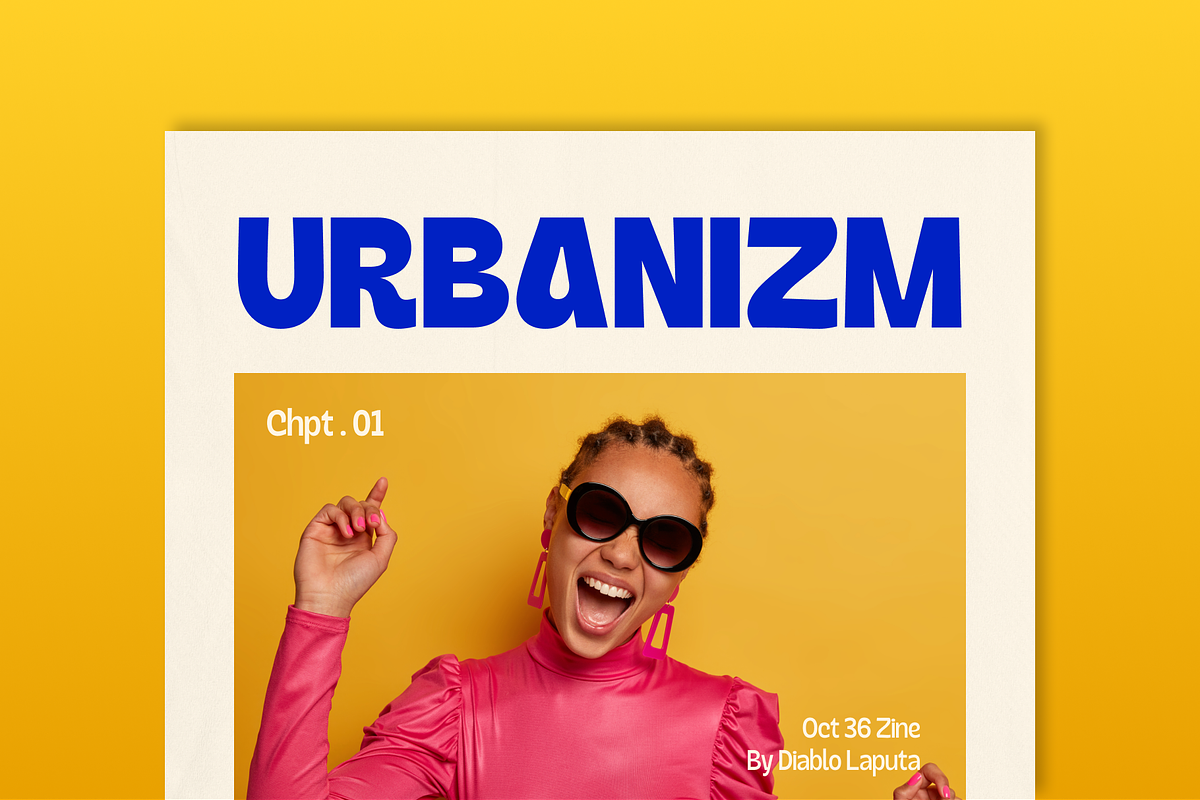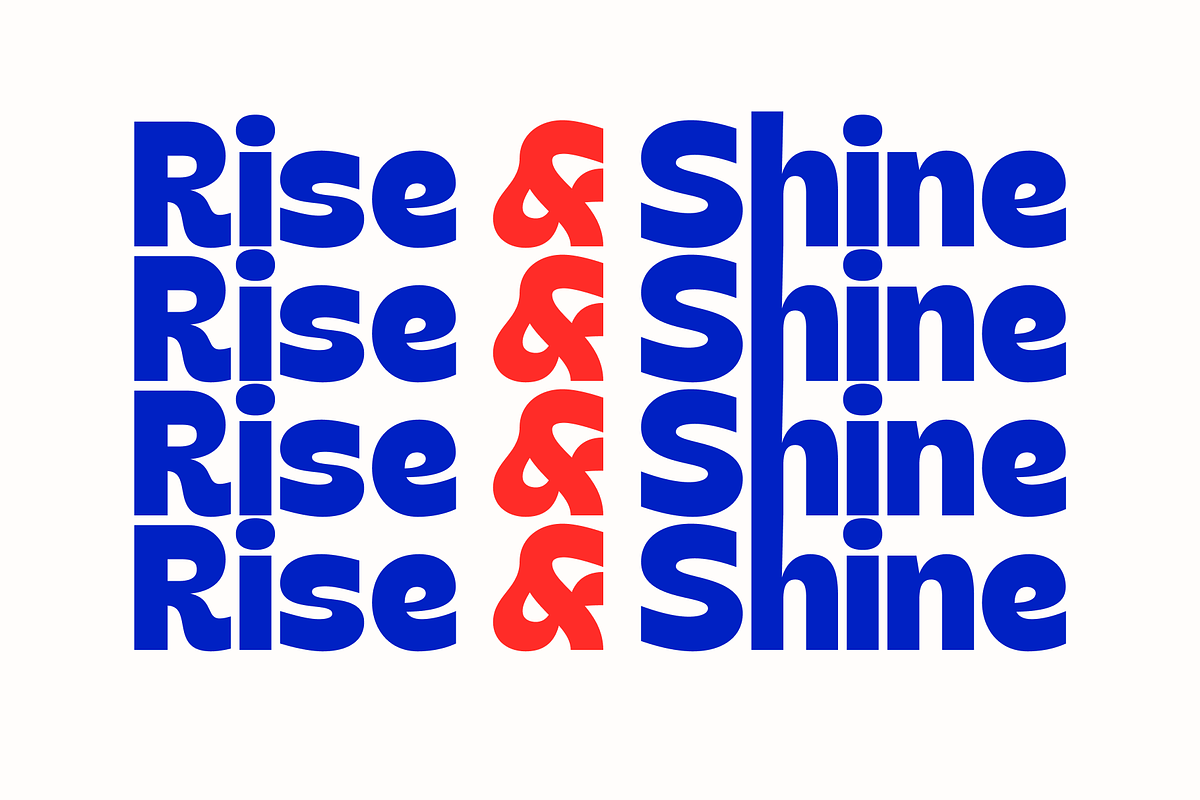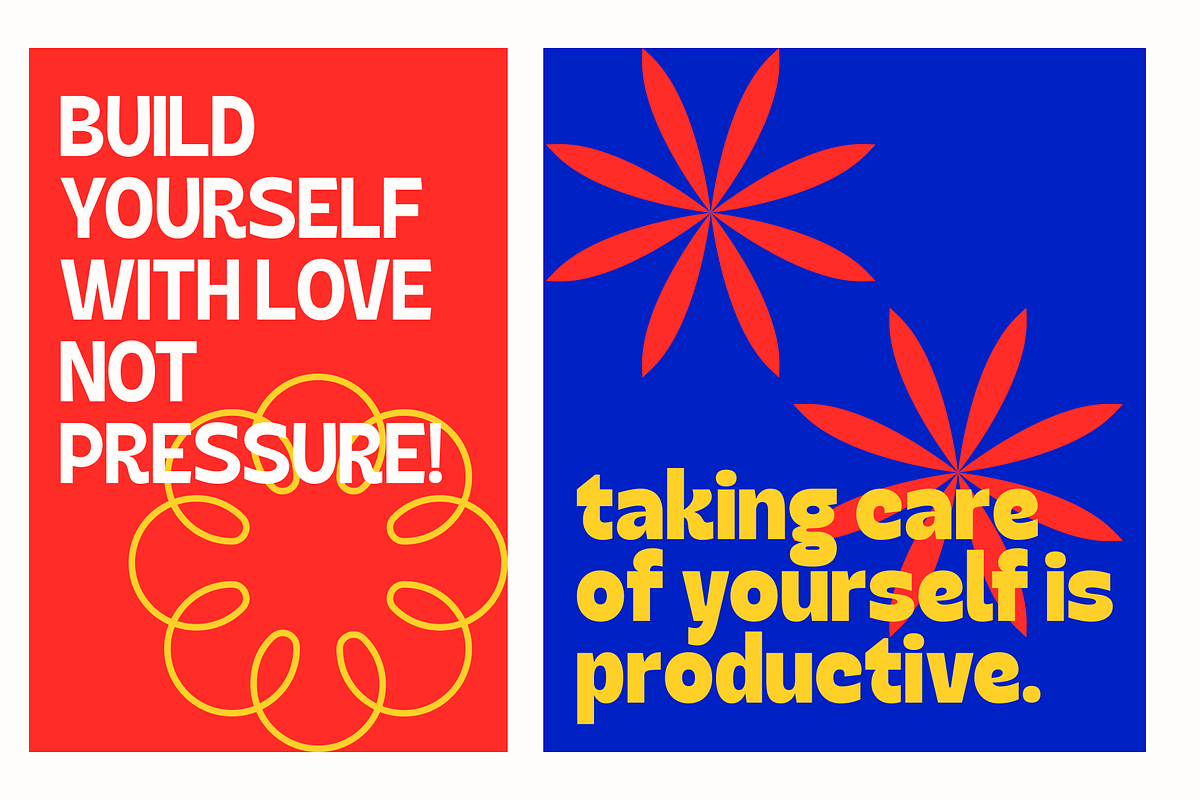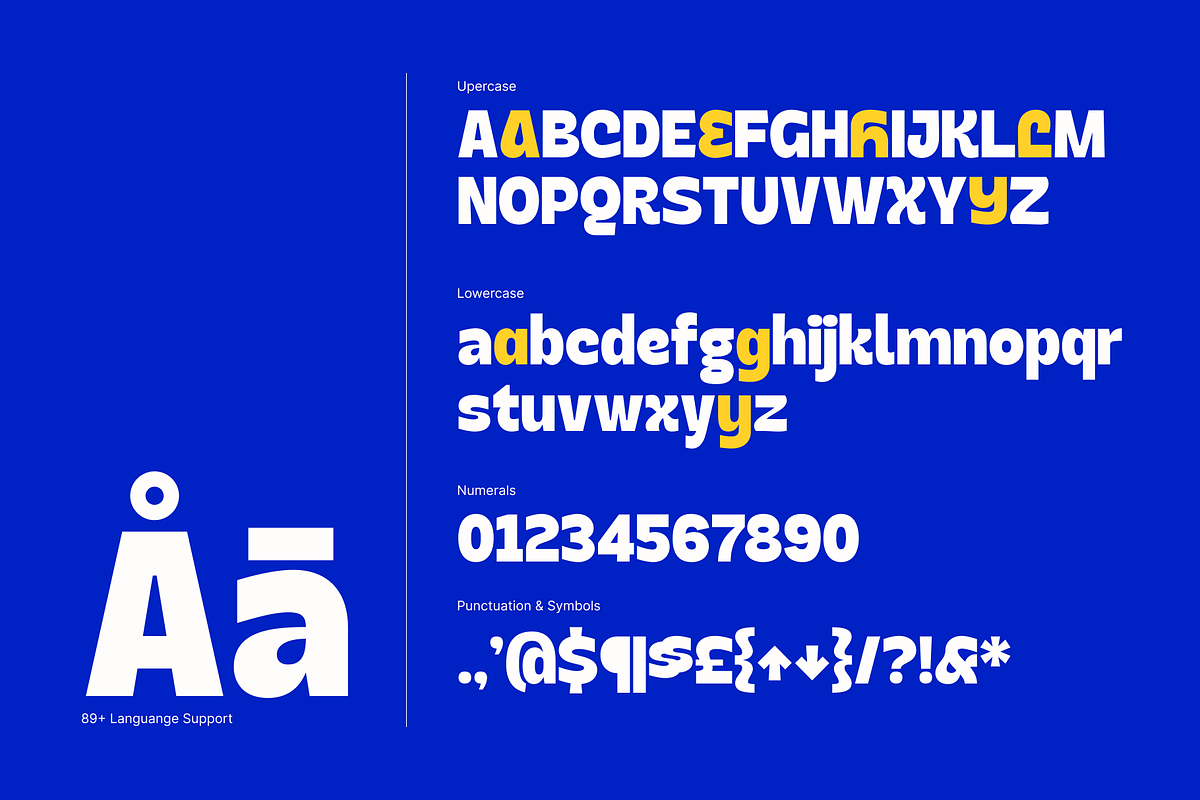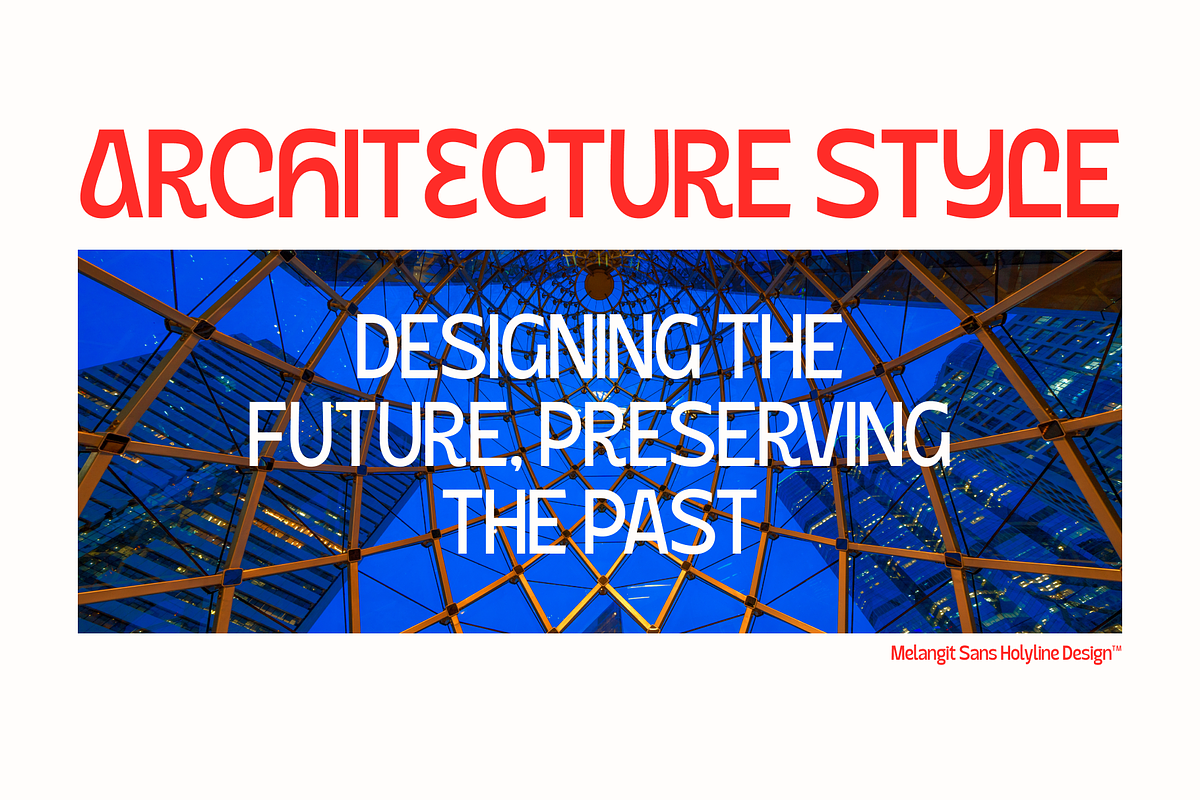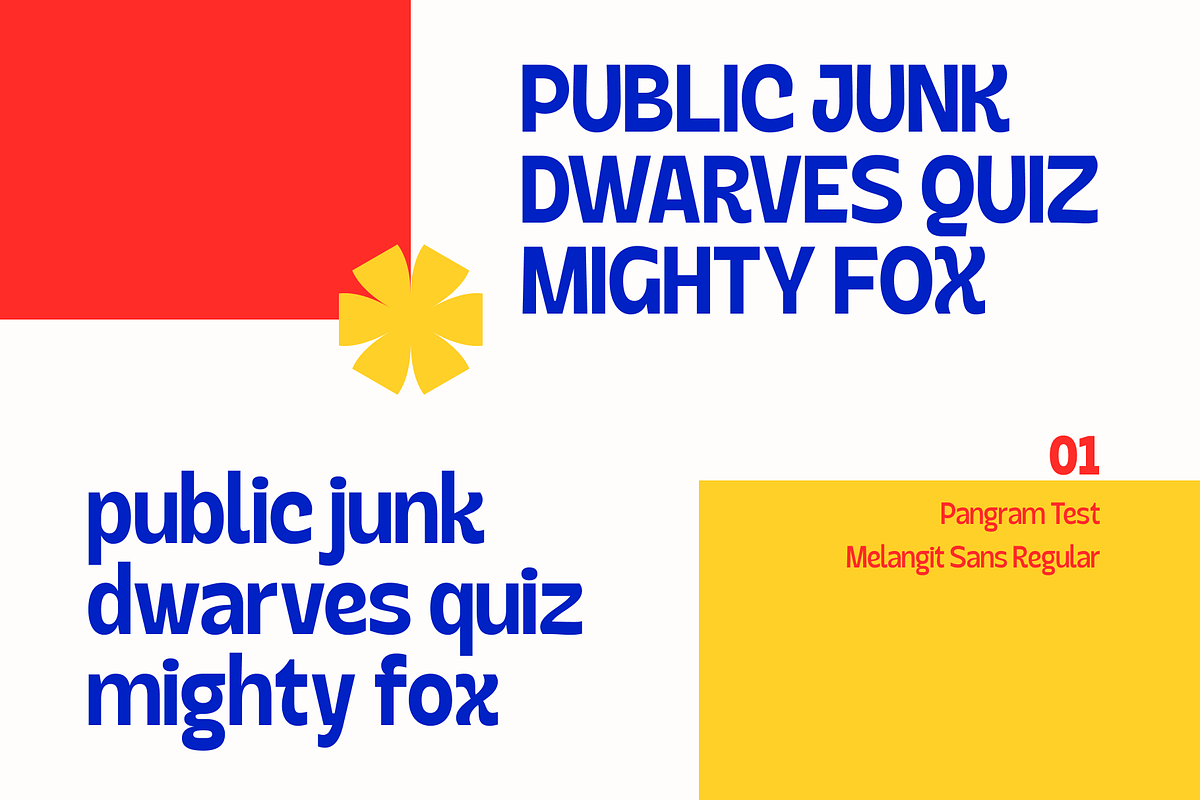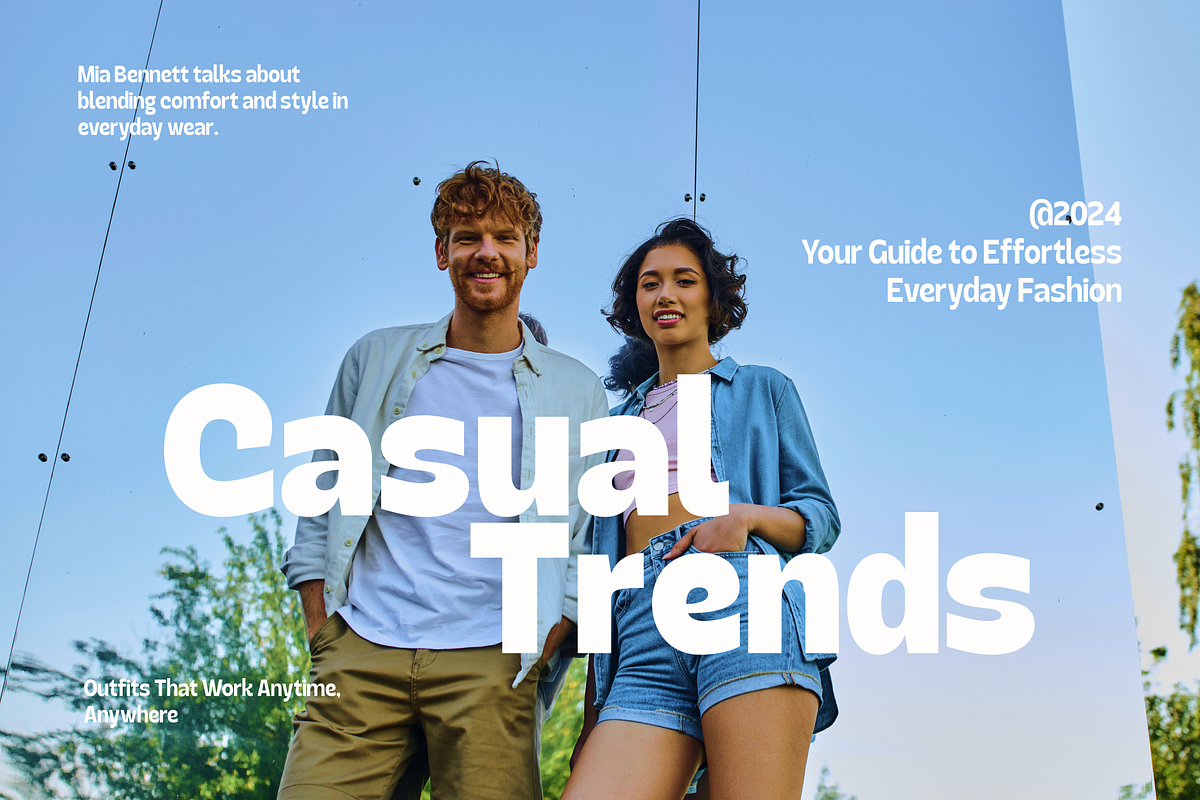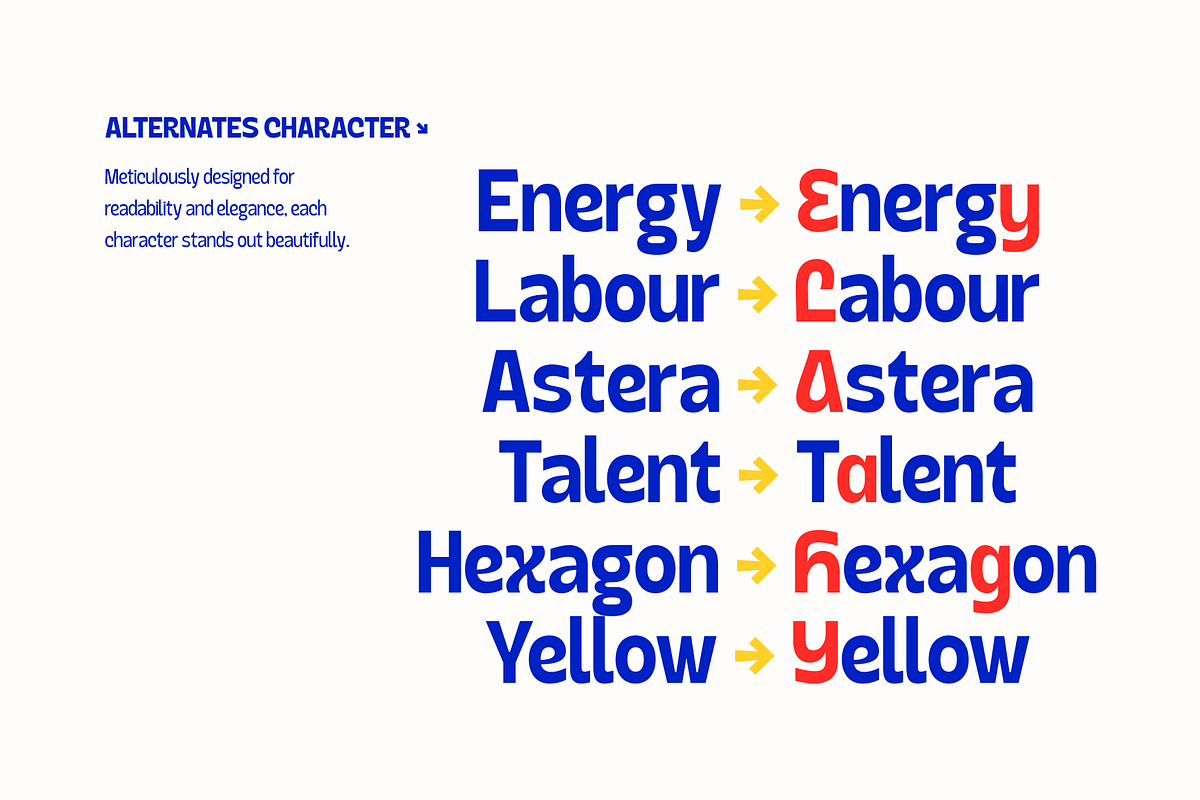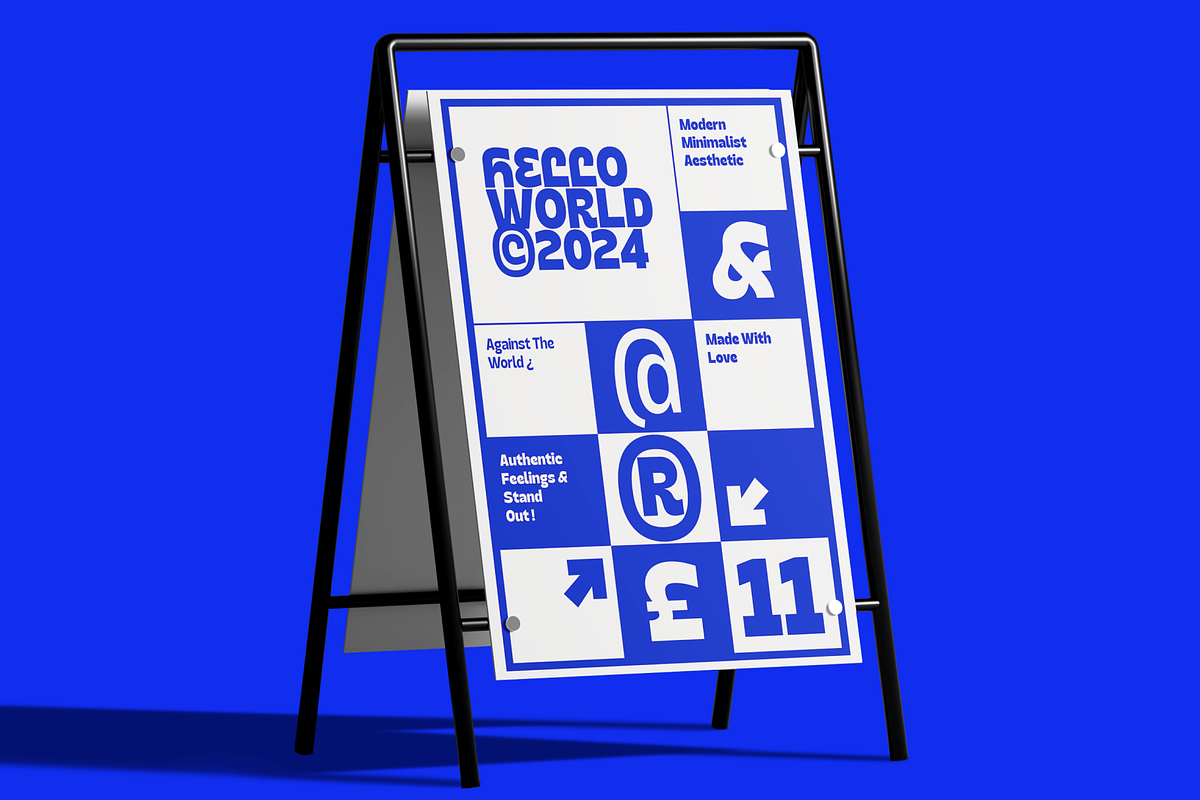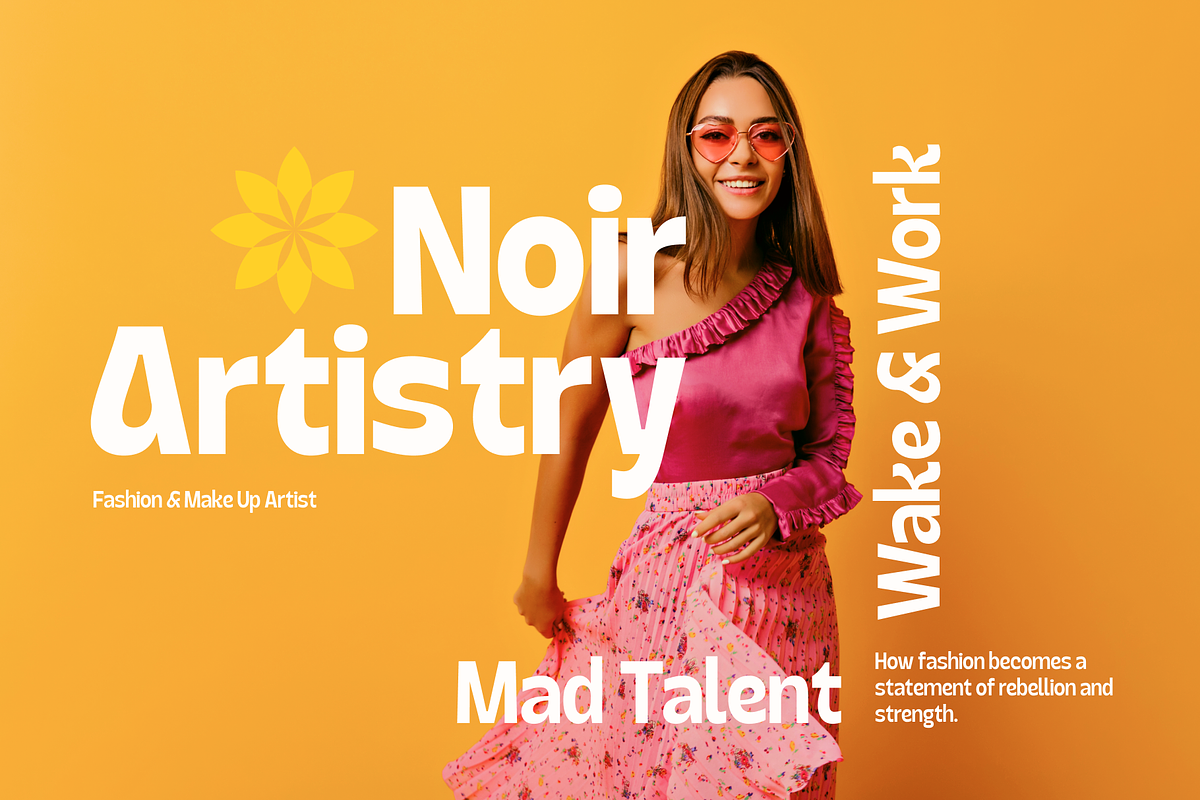
Melangit Sans - Display Family
Melangit Sans is a dynamic and playful sans serif display font inspired by the clean lines of modern grotesk typefaces. With its contemporary design, it’s perfect for magazine layouts, bold headlines, and creative typography.The font features 7 weights, ranging from thin to bold, offering versatility for a wide range of design projects. It also includes alternates, enabling designers to effortlessly create smooth curves and elegant shapes, achieving eye-catching results with ease. Whether you're crafting standout branding, editorial designs, or striking typographic compositions, Melangit Sans delivers modern sophistication with a playful edge.